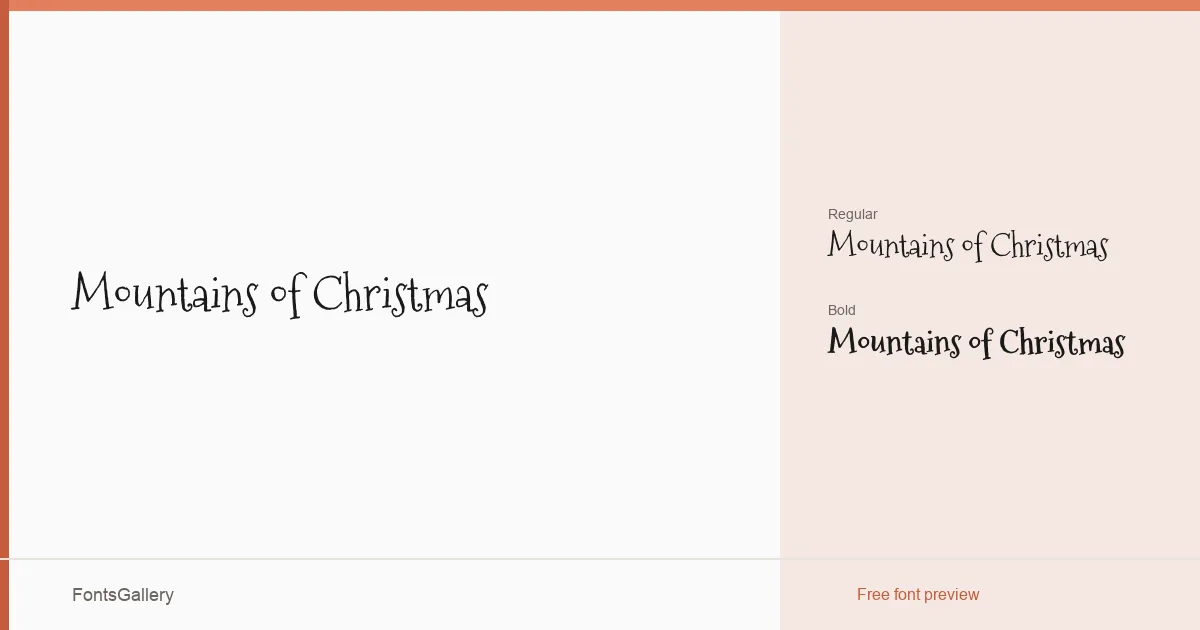
About Mountains of Christmas Font
Mountains of Christmas is a charming display typeface designed by Crystal Kluge and published through Font Diner, Inc DBA Tart Workshop. It brings a festive, storybook quality to any design project, capturing the warmth and nostalgia of the holiday season. Its expressive character makes it an instantly recognizable choice for seasonal and celebratory creative work.
With a playful and whimsical personality rooted in vintage and rustic sensibilities, Mountains of Christmas features letterforms that feel hand-crafted and full of charm. The display-category styling lends itself to bold, eye-catching headlines with a cozy, old-fashioned warmth. Each character carries an organic energy that evokes traditional holiday illustration and decorative typography traditions.
Mountains of Christmas shines brightest in posters, greeting cards, invitation cards, children's books, and social media graphics where a festive and expressive tone is desired. Its whimsical display style works beautifully as a headline or accent font paired with cleaner, more neutral typefaces. For a balanced typographic combination, consider pairing it with Helvetica for a modern contrast or Aresink for a complementary hand-crafted feel.